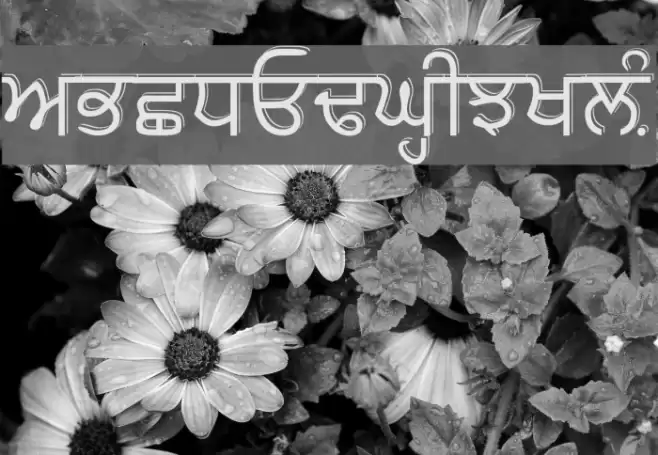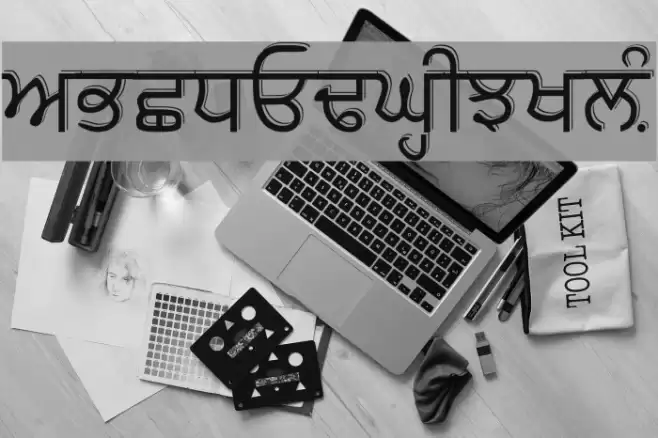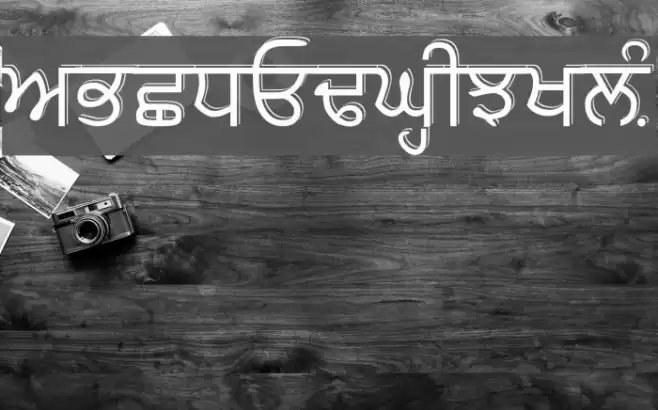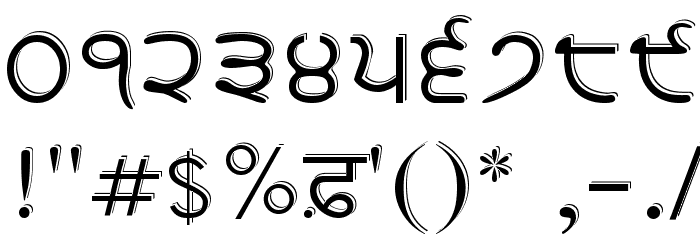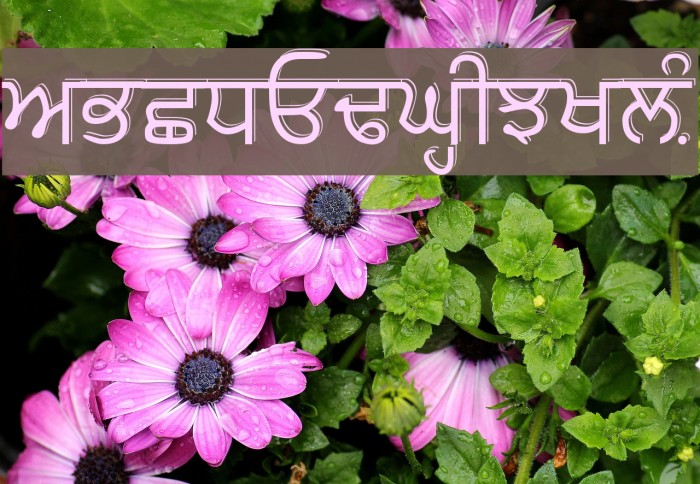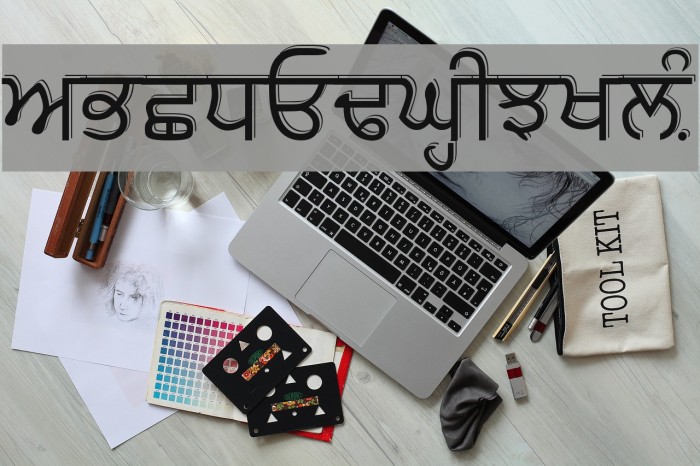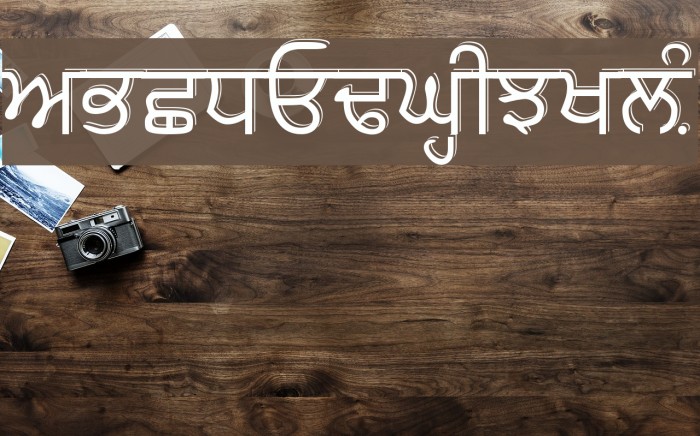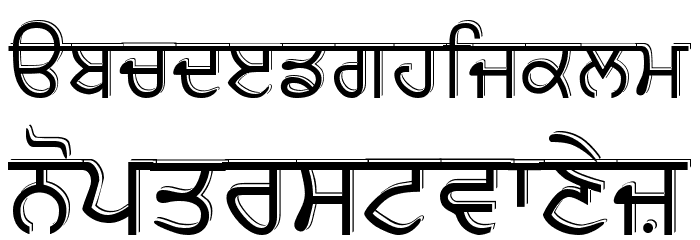
GurbaniUbhri Font
GurbaniUbhri Description
This font is a unique and artistic representation of the Gurmukhi script, characterized by its bold and decorative style. The letters are intricately designed with a combination of thick and thin strokes, creating a dynamic visual contrast. The script maintains traditional elements while incorporating modern design aesthetics, making it suitable for both cultural and contemporary applications. The characters are well-spaced, ensuring readability while maintaining an elegant flow. The font includes a full set of numerals and special characters, enhancing its versatility for various design projects.
A bold and decorative Gurmukhi script font with modern aesthetics from Asian fonts.